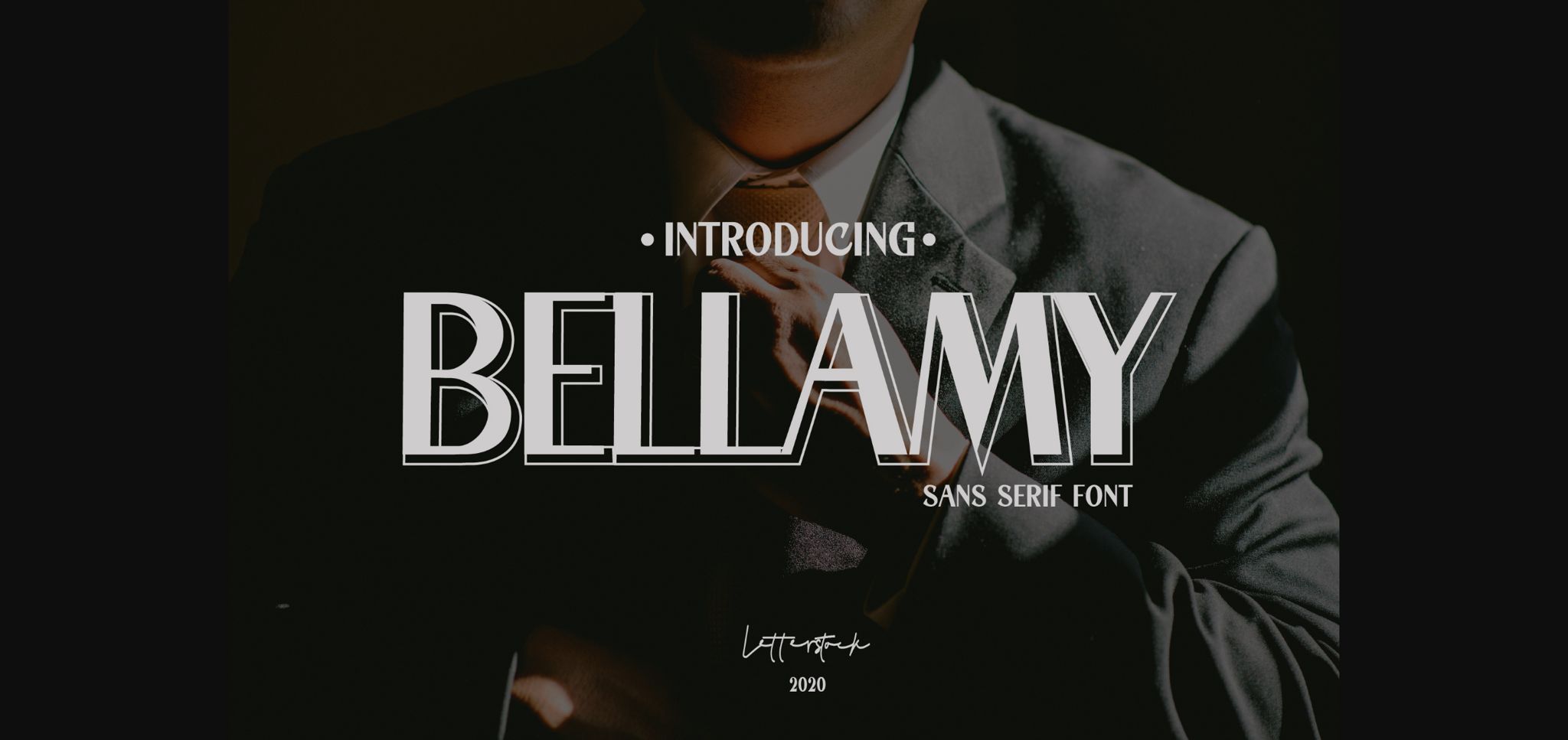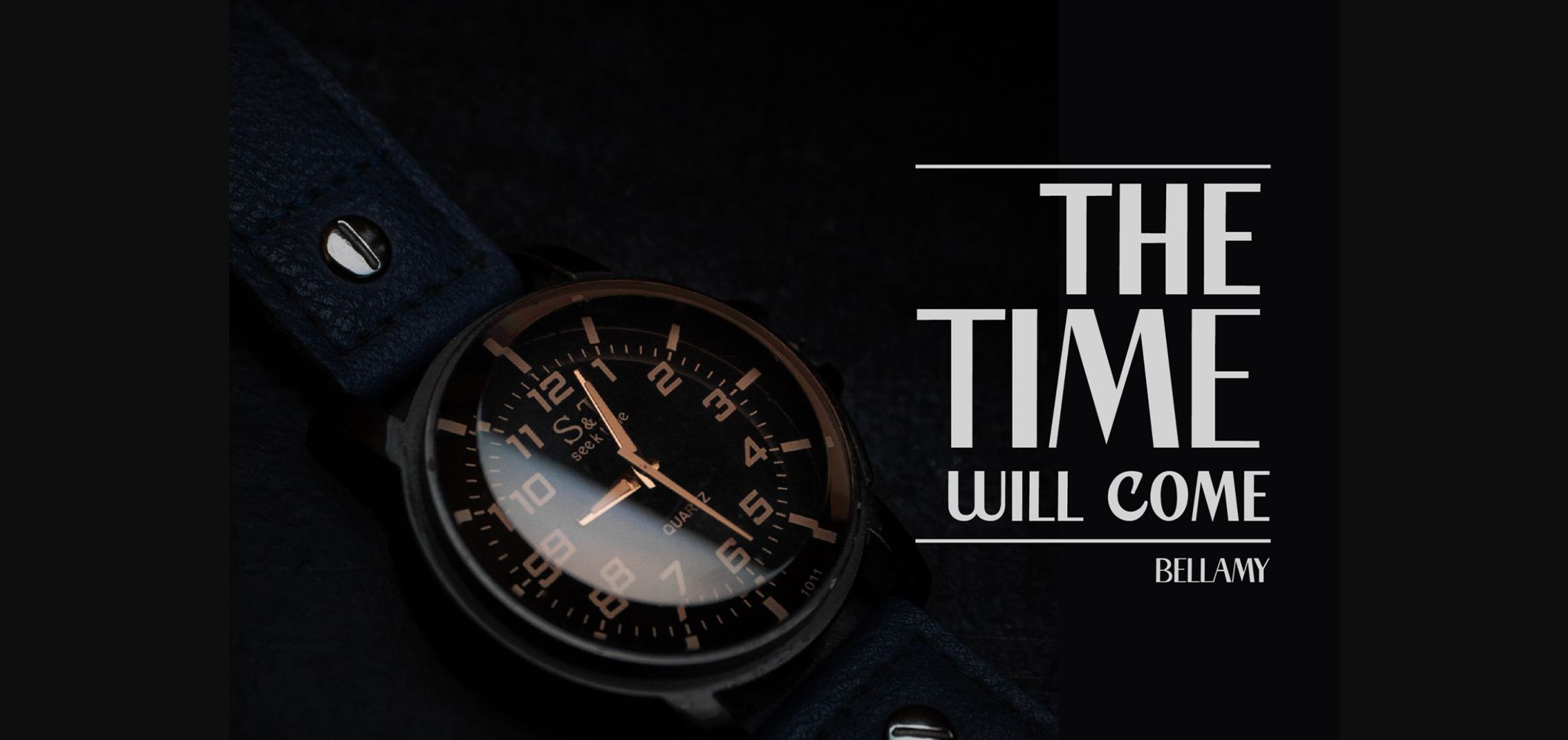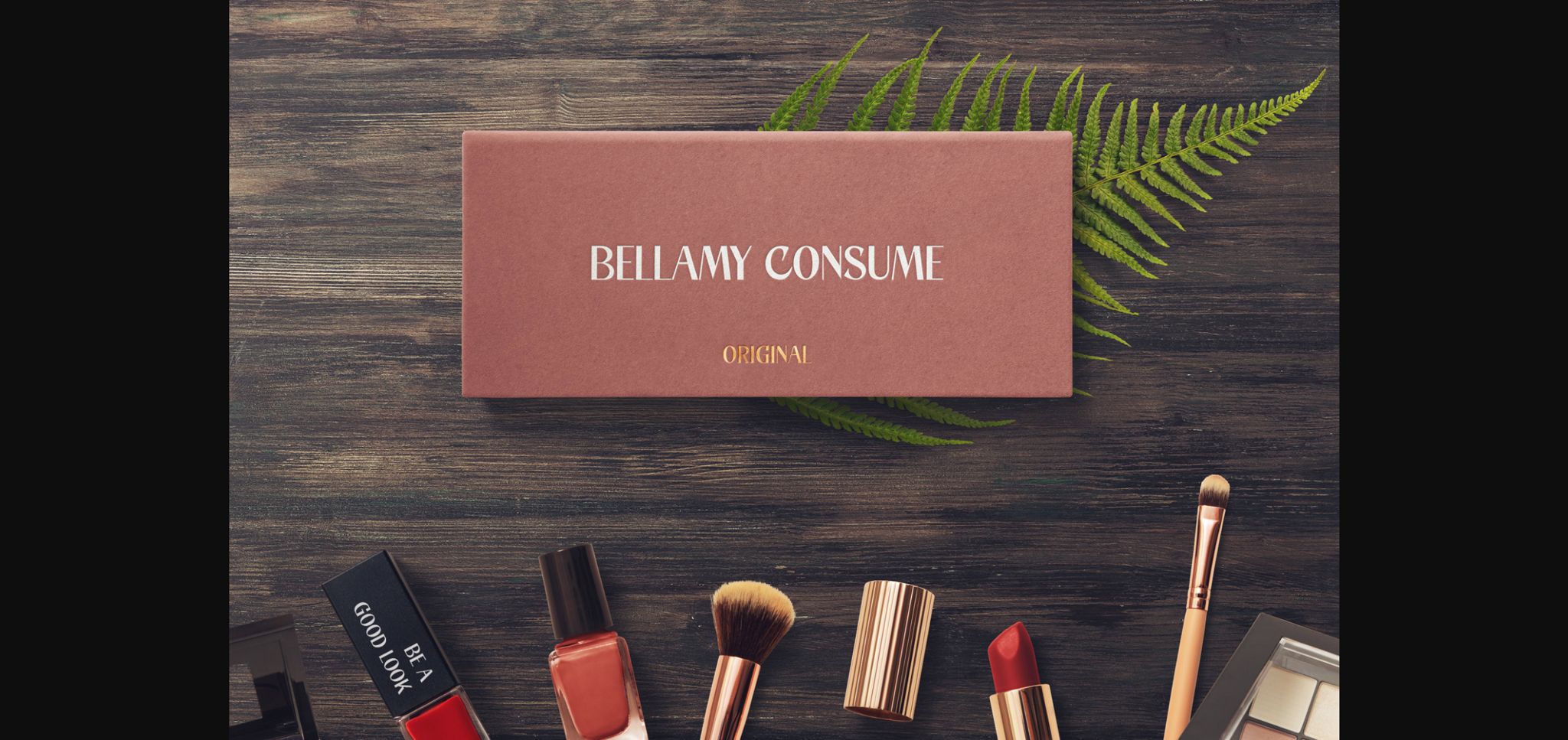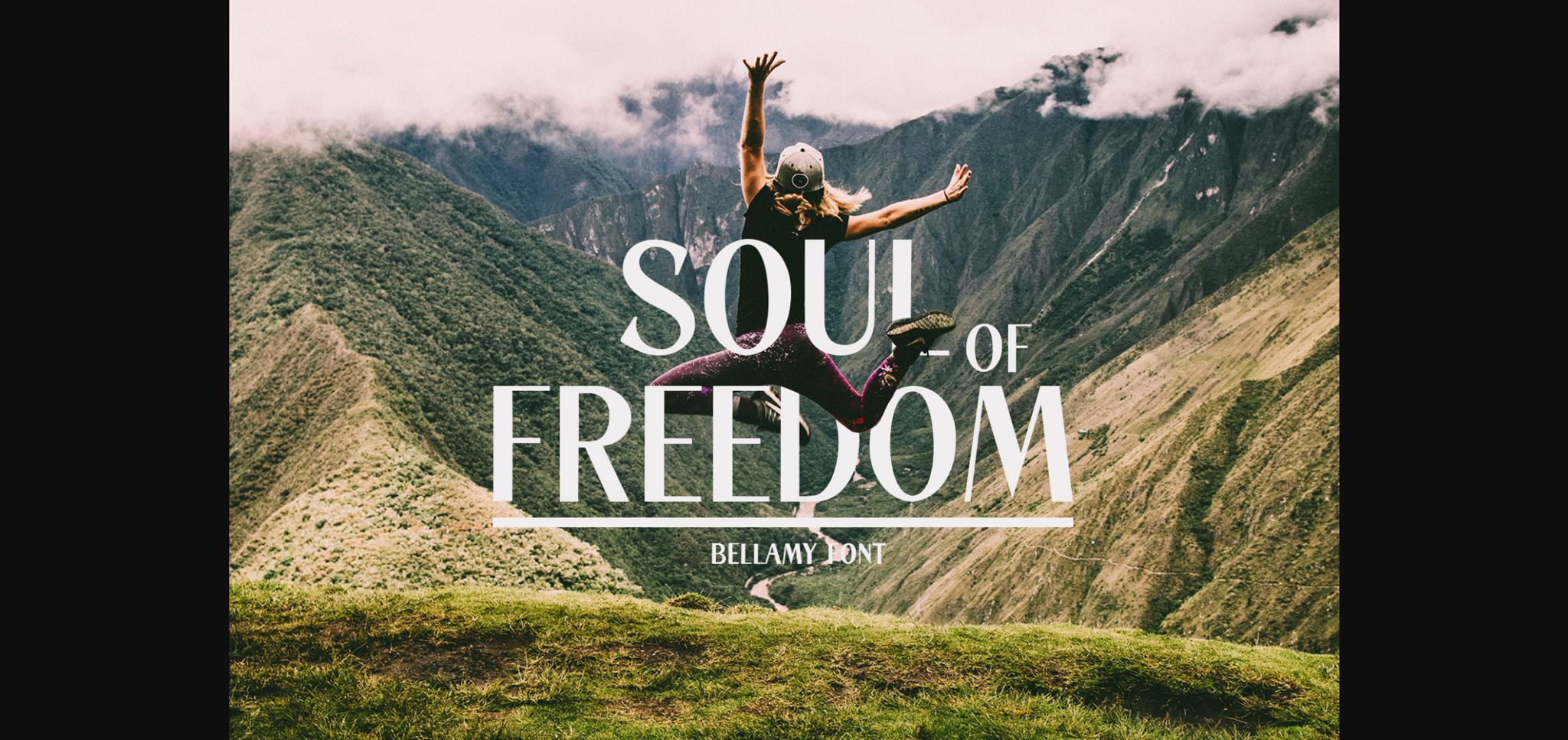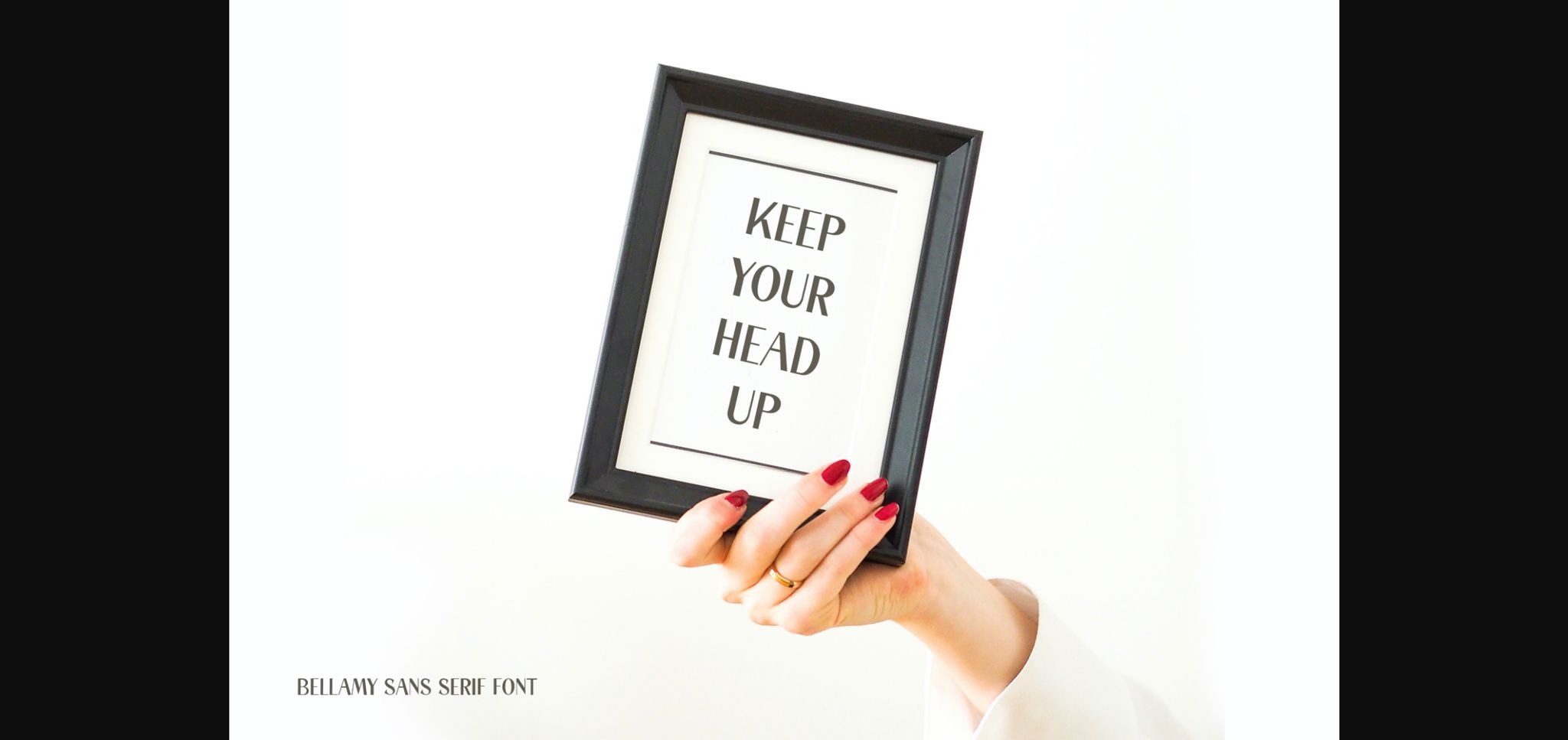
Bellamy Font
About Bellamy Font
Bellamy is a bold and thick lettered sans serif font. Modern and incredibly versatile, this font will fit a variety of designs, both formal and informal.